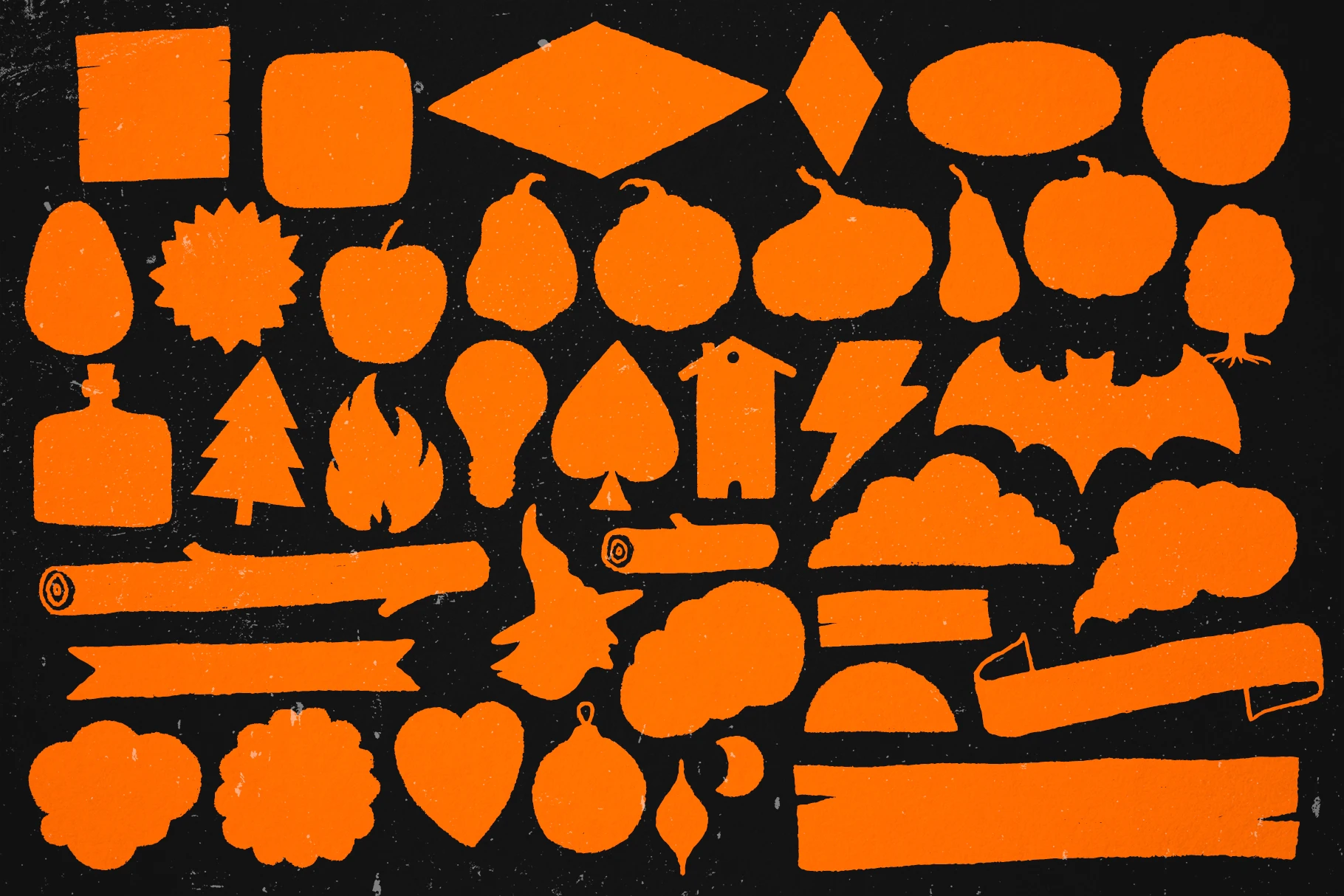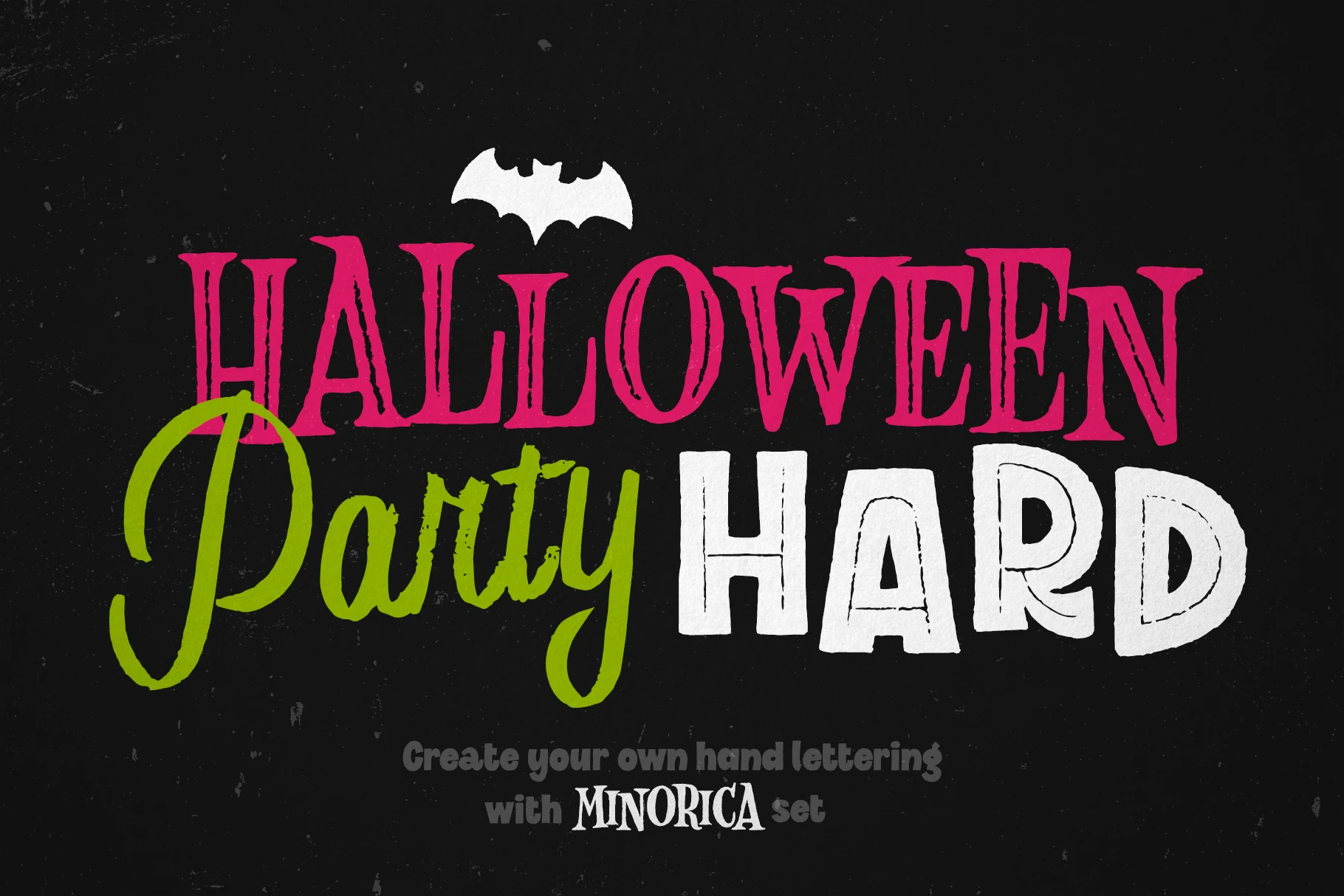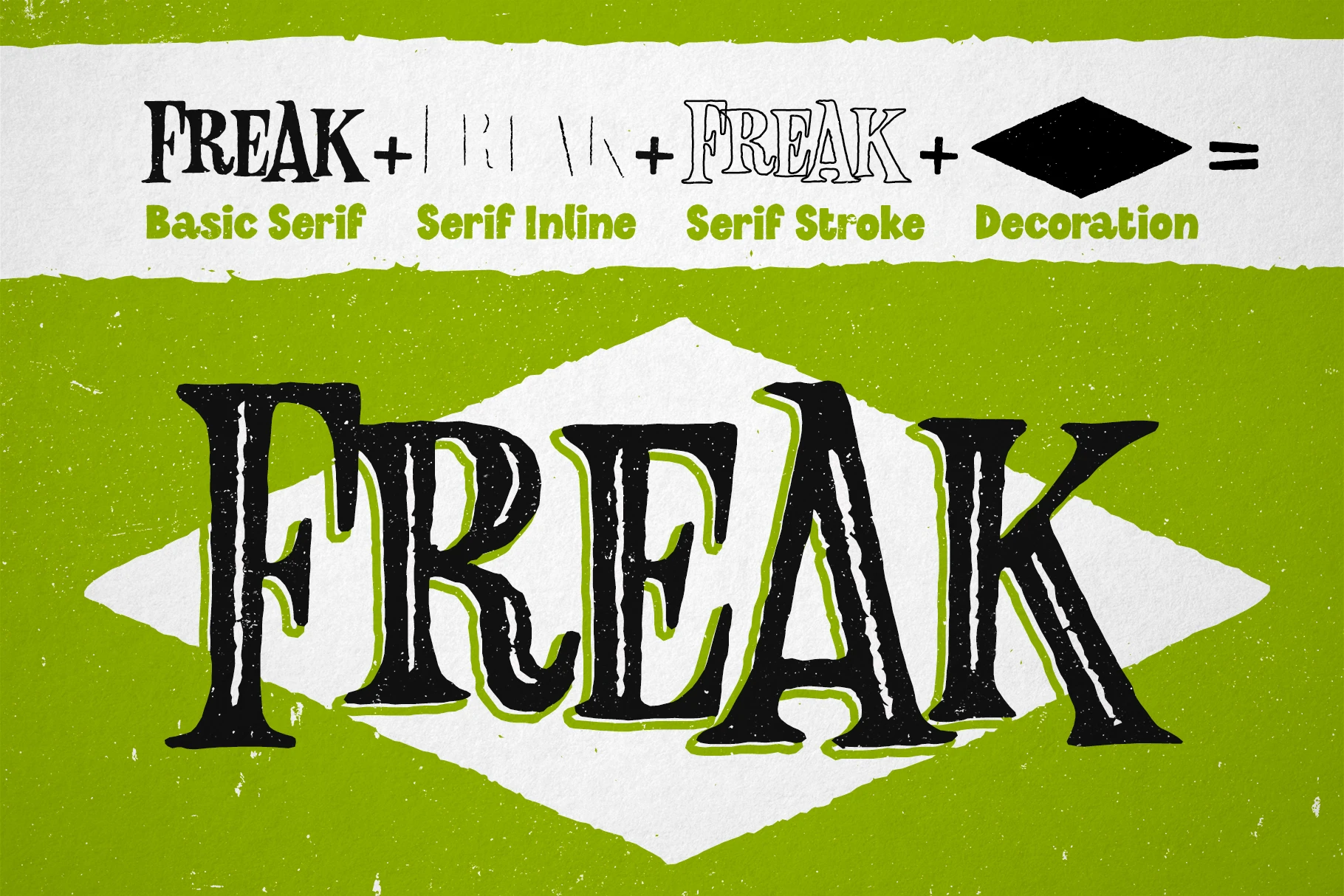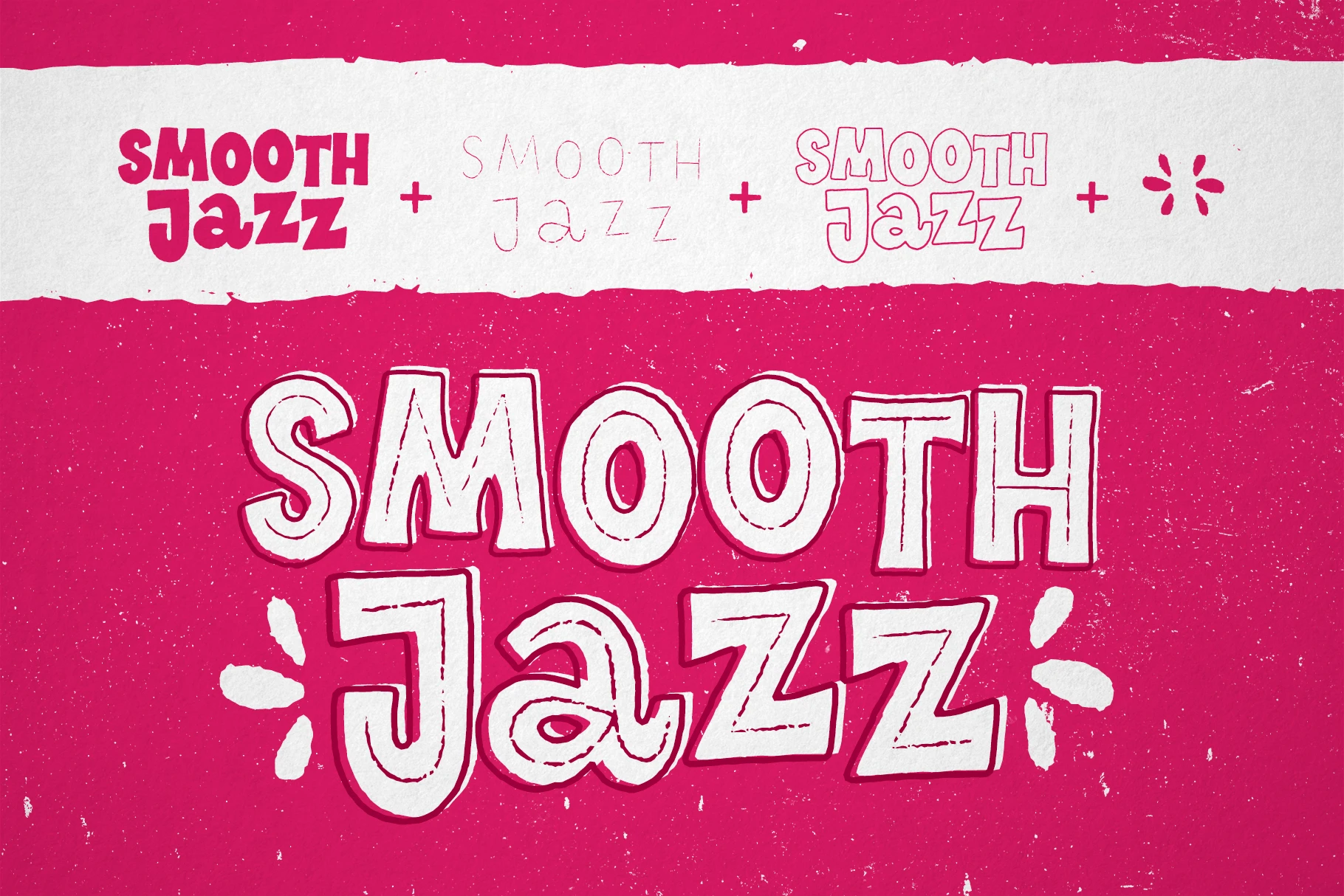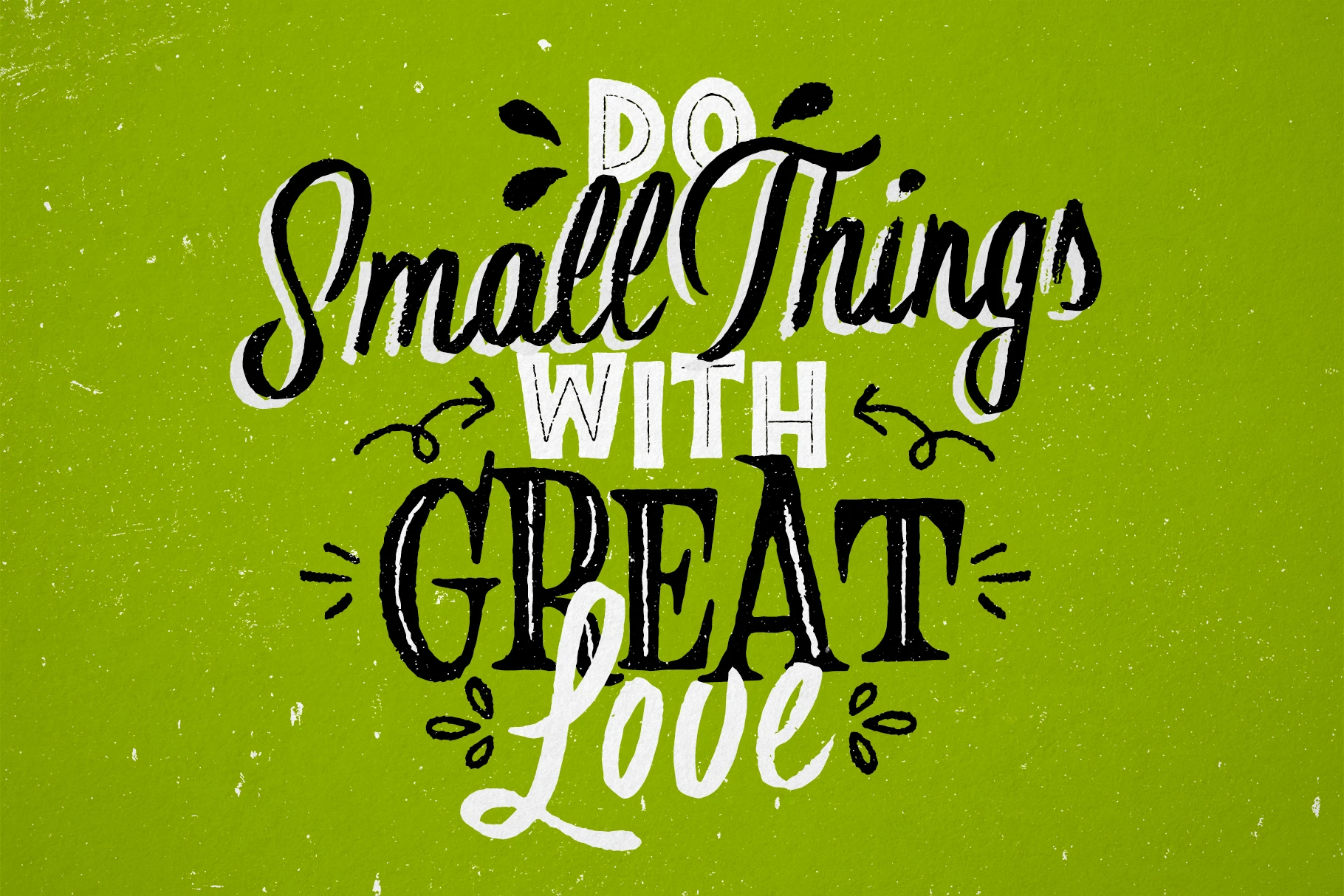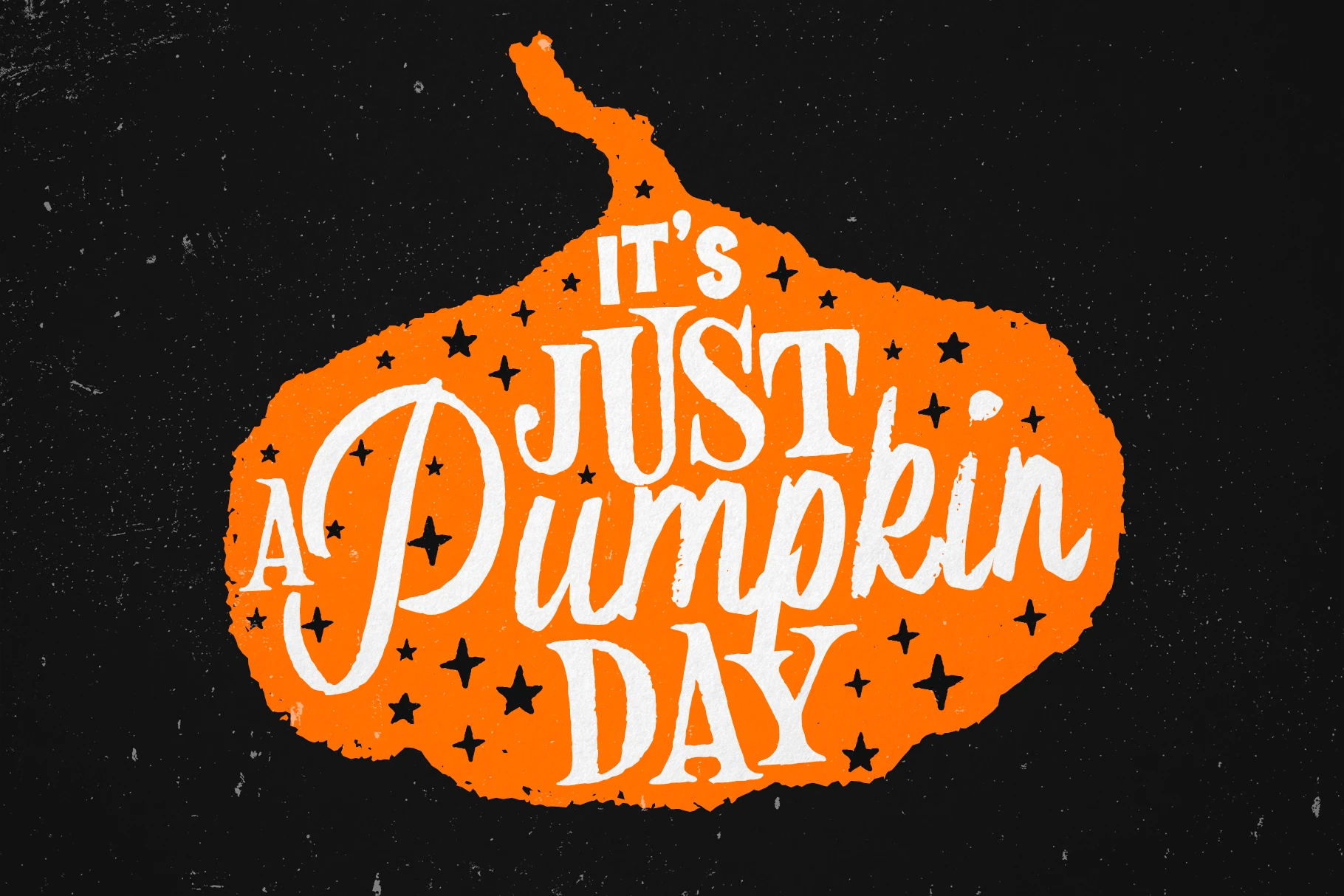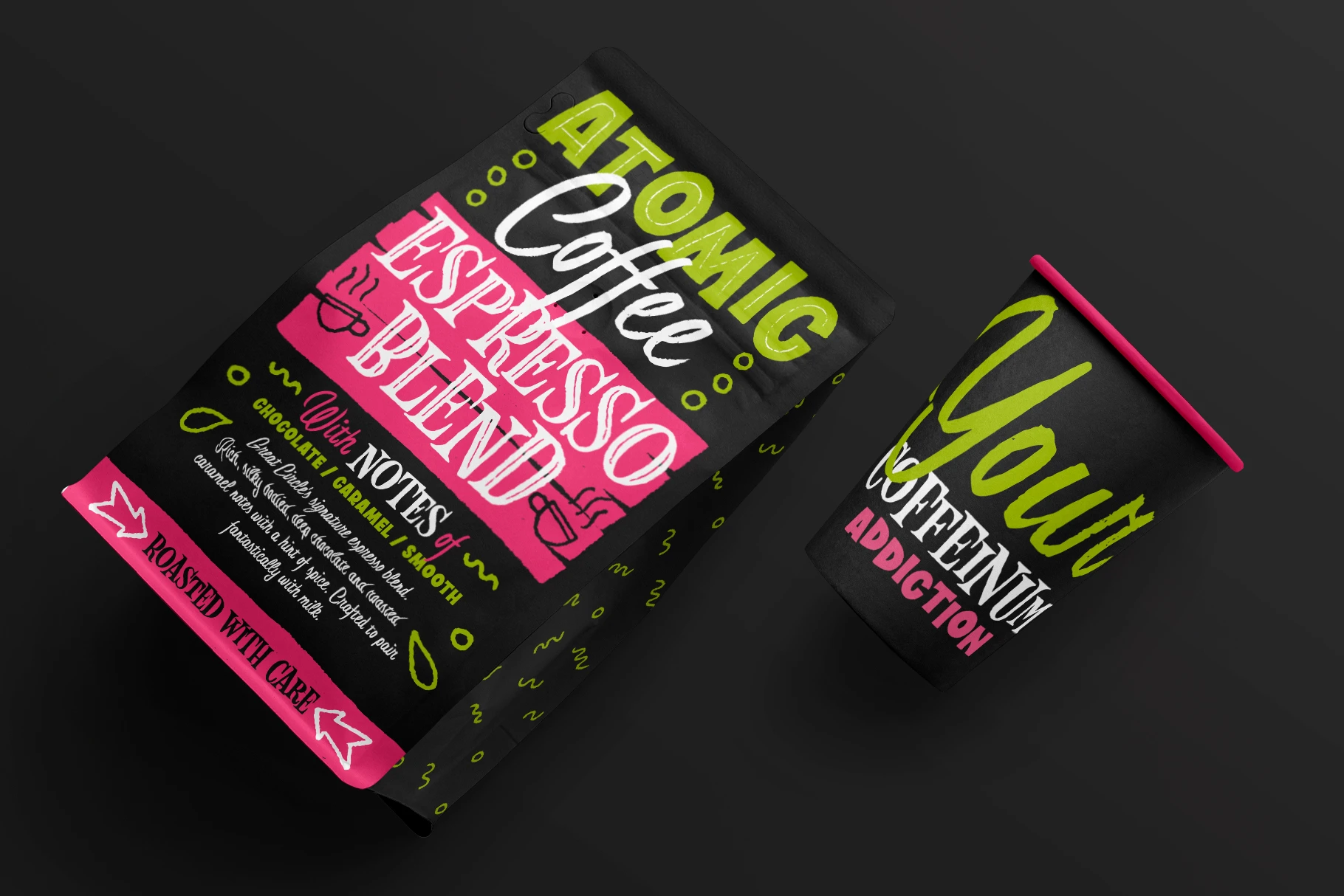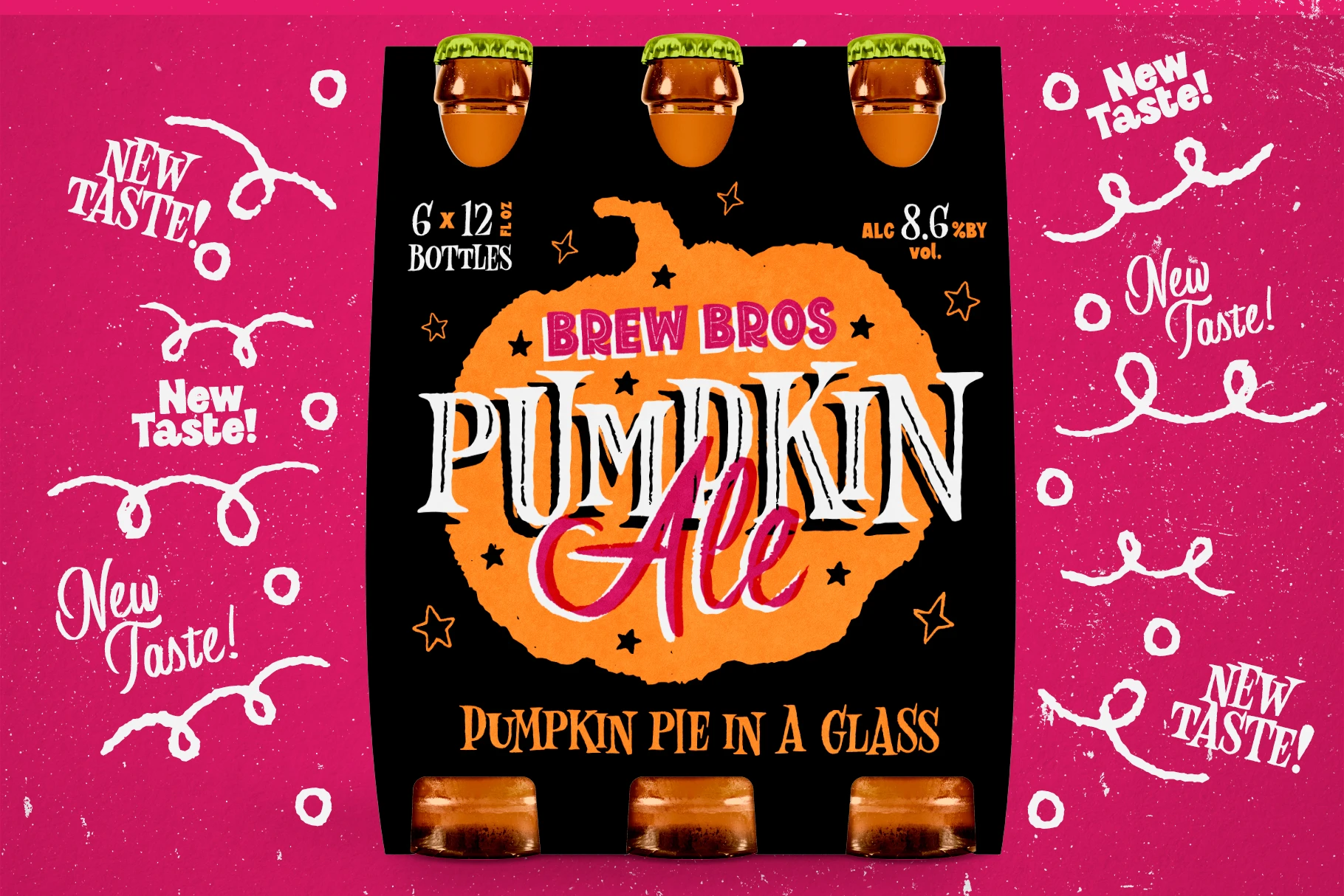
Minorica • 10 styles
Minorica is a handwritten font collection designed to mimic the charm of hand lettering. It features rough pencil-style characters, rustic shapes, and playful decorative elements for an authentic, handcrafted feel. The set includes a bouncy all-caps spooky serif with stroke and inline options, a textured brush script, and a bold sans-serif with playful inline and stroke styles. A decoration font rounds out the collection with text shapes and doodle accents. Ideal for greeting cards, t-shirts, cafe signage, book covers, and fun, creative content with a lighthearted, personal touch.
Minorica
Collection
10 styles
Minorica Script
Styles included • Decoration • Regular
Minorica Sans
Styles included • Inline • Line • Regular • Stroke
Minorica Serif
Styles included • Inline • Line • Regular • Stroke